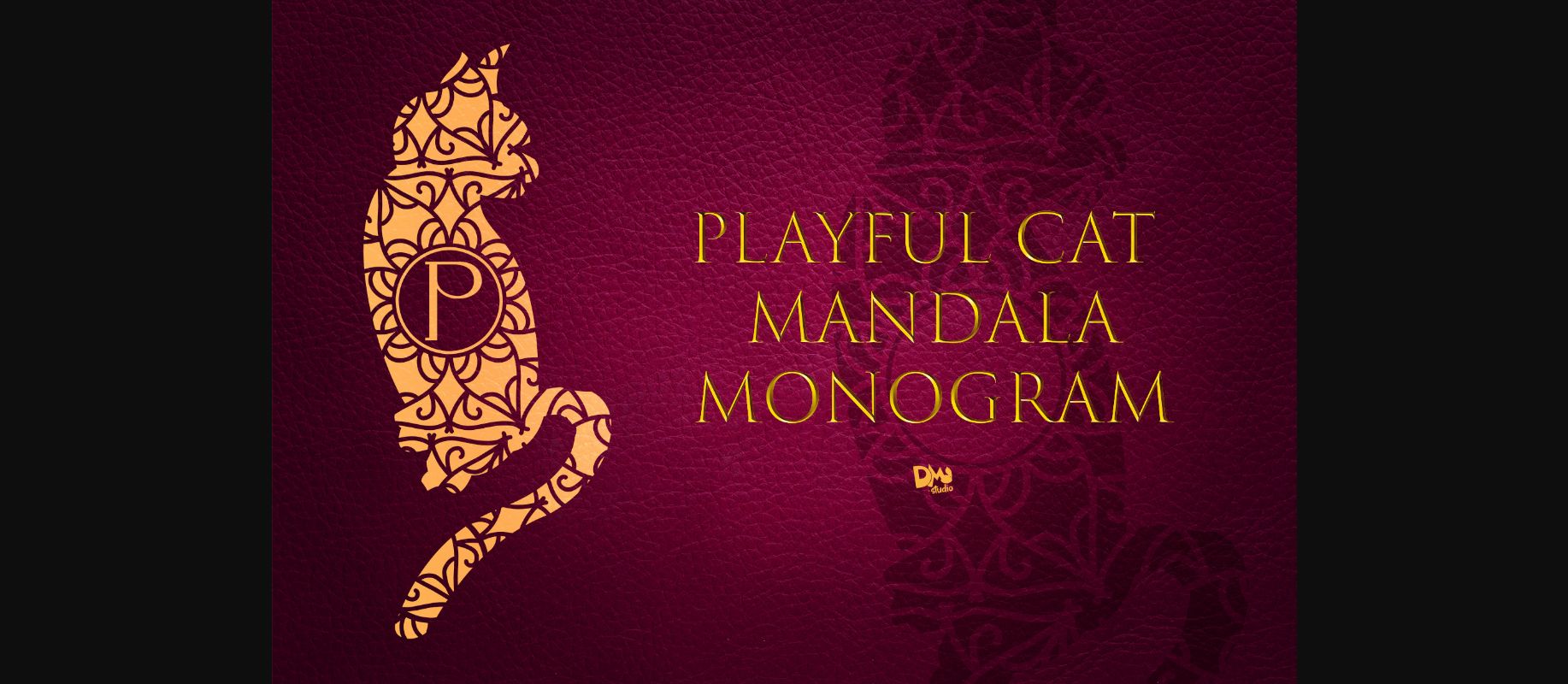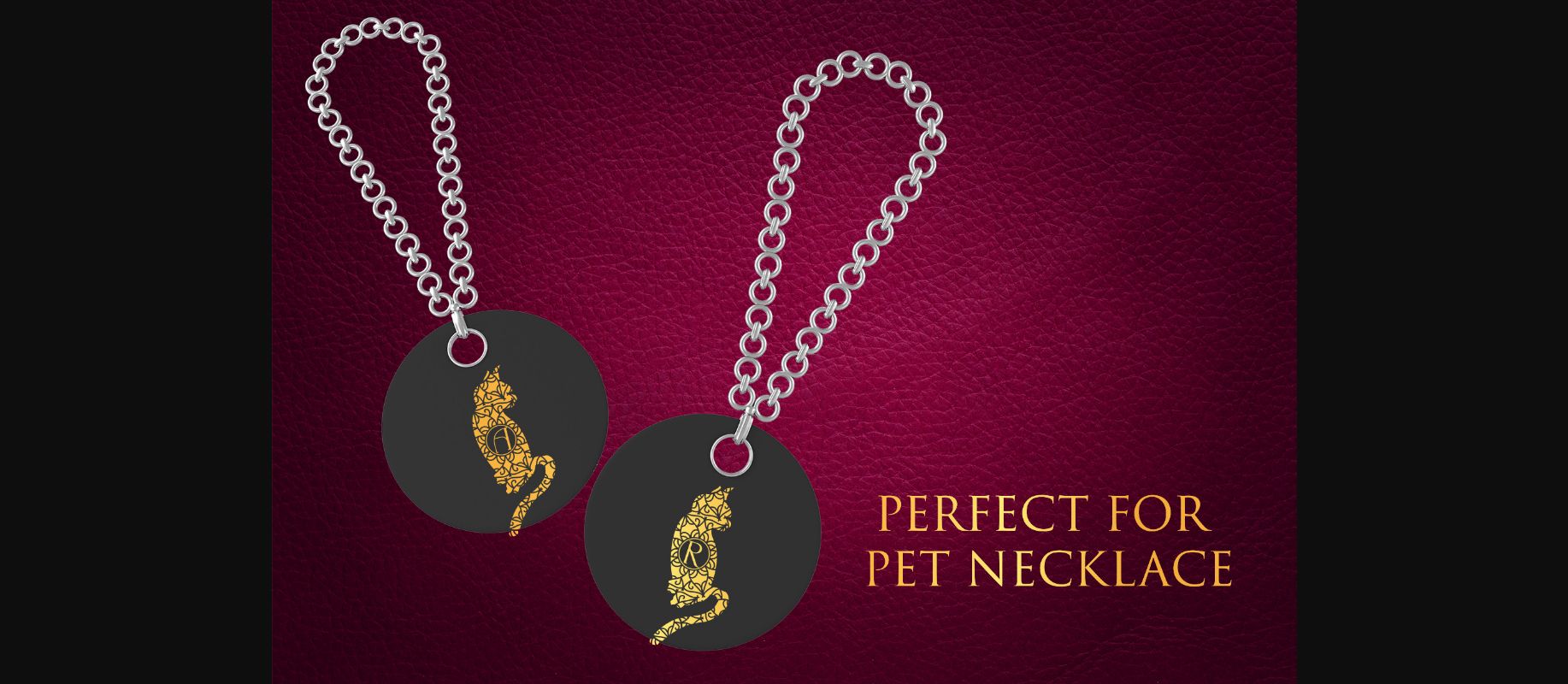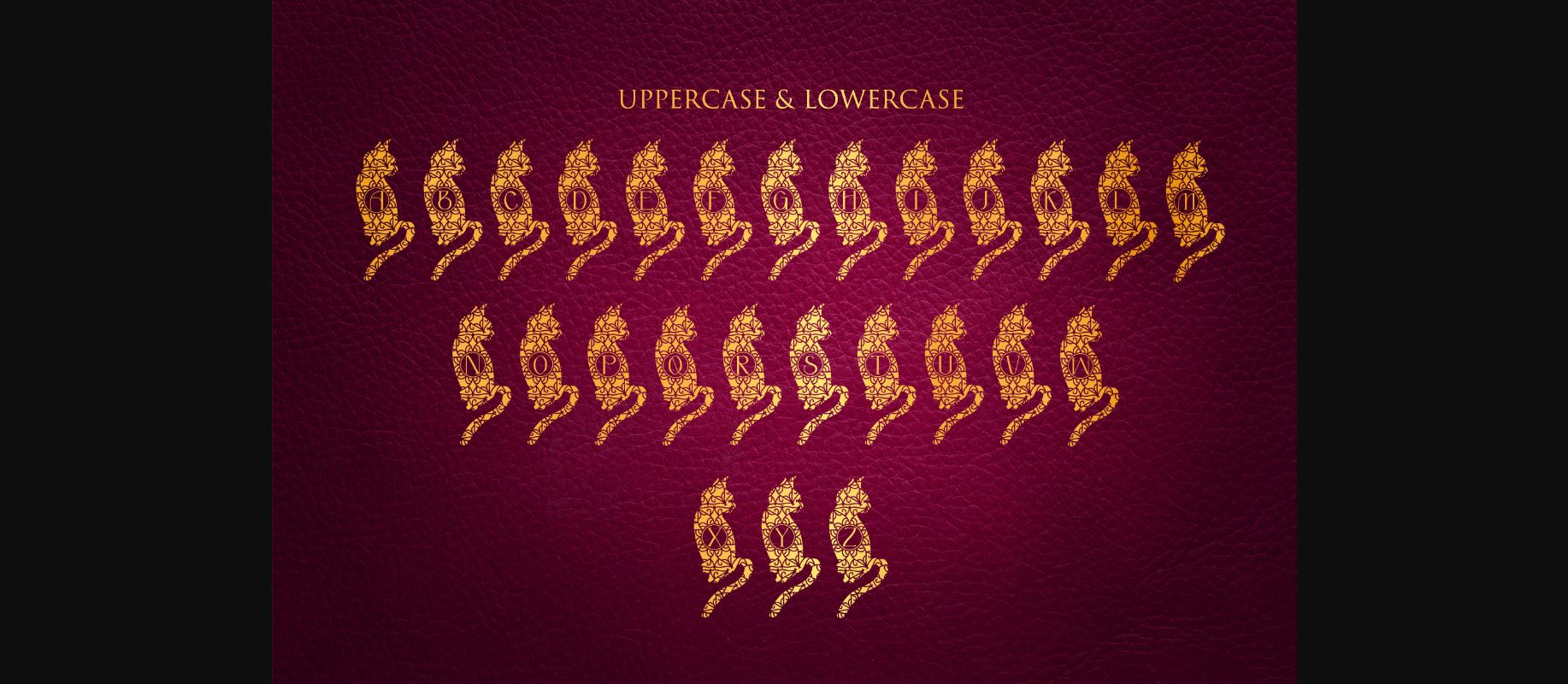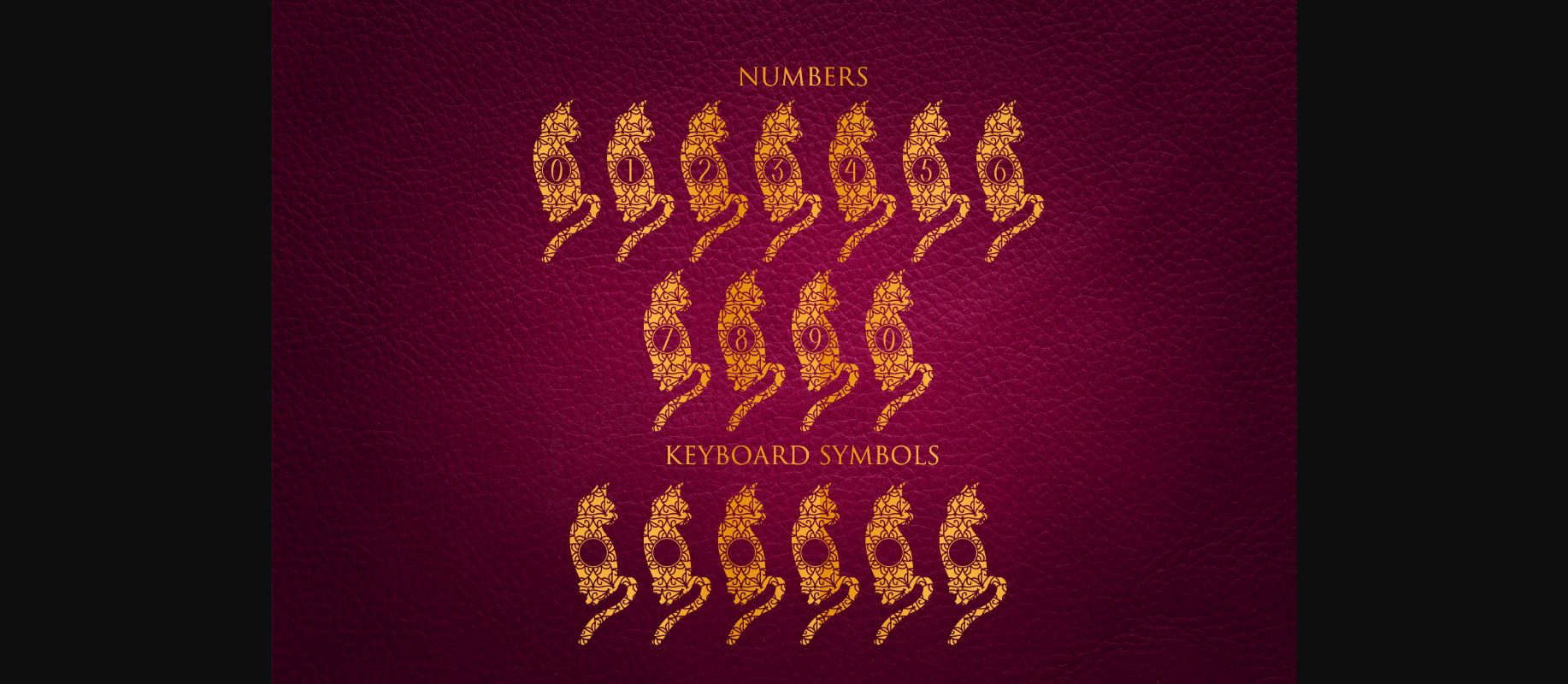
Playful Cat Mandala Monogram Font
About Playful Cat Mandala Monogram Font
Playful Cat Mandala Monogram is the ultimate cat-lovers font. This purrfect decorative typeface will enhance any creative project dedicated to kittens.